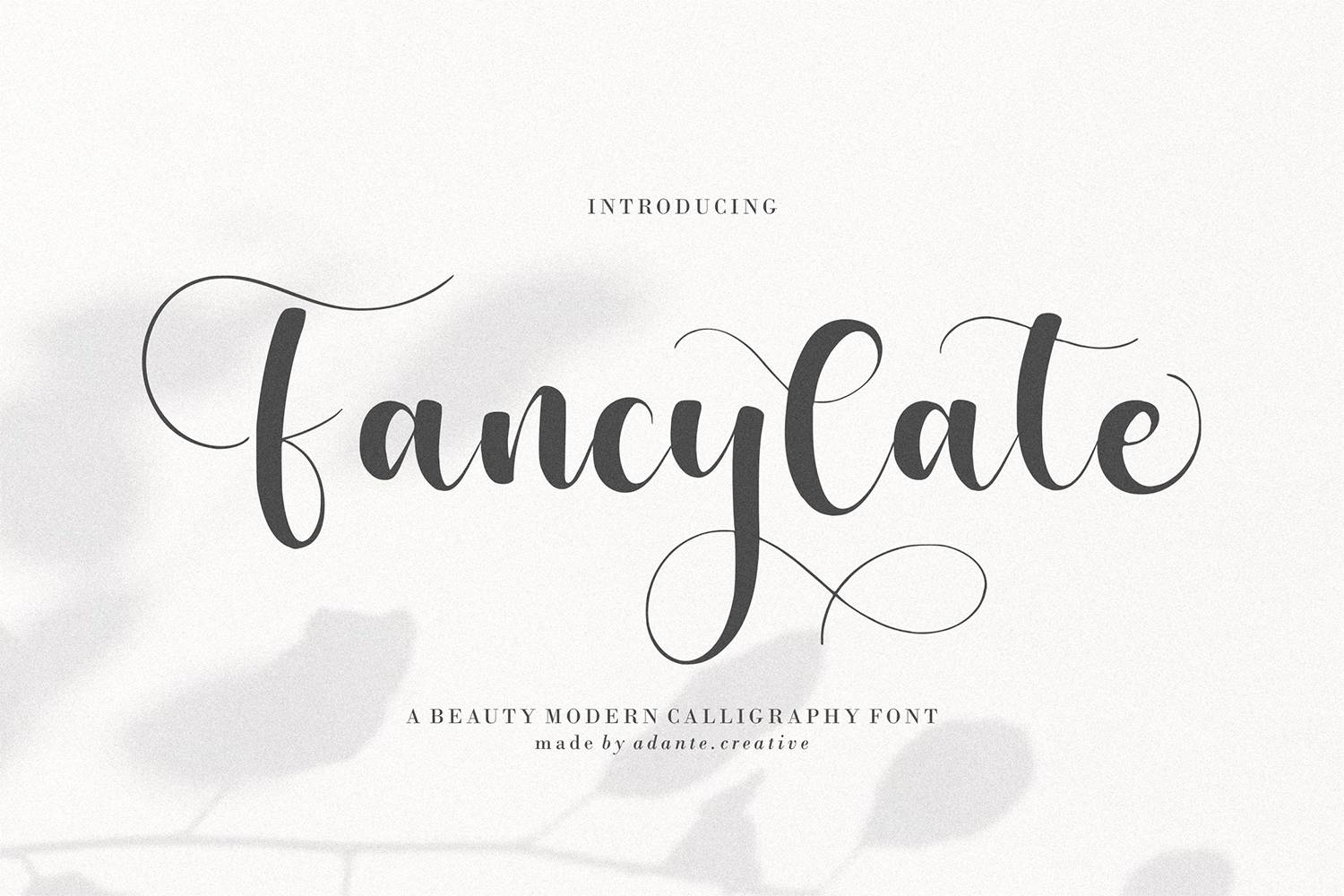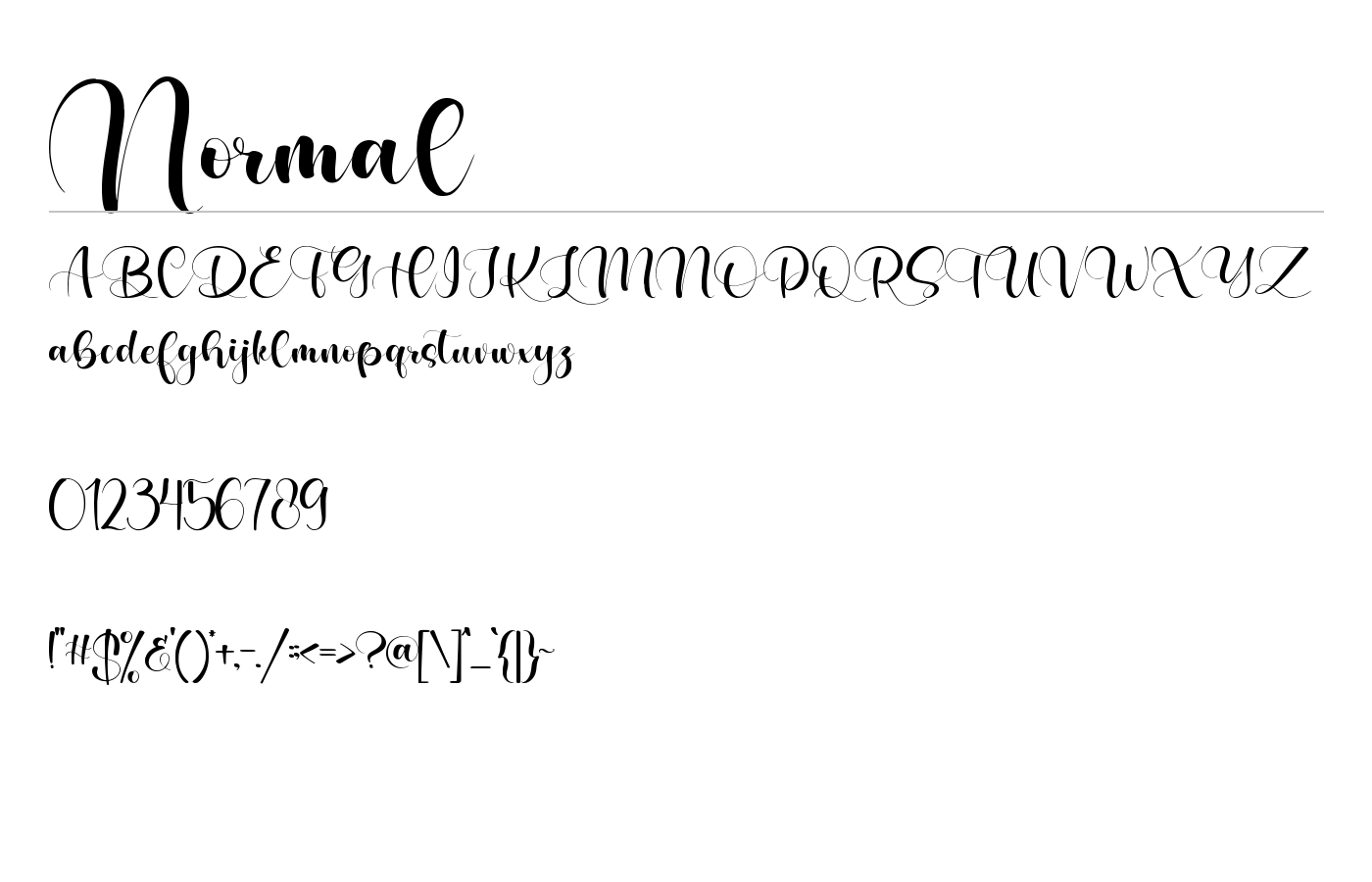
Fancylate is an elegant script font with flowing, delicate strokes and a graceful, calligraphic feel. Its high contrast between thick and thin lines combined with decorative swashes makes it perfect for sophisticated branding, wedding invitations, and luxury packaging where a refined, artistic touch is desired. This font shines best in headlines and display uses, bringing charm and personality to any design.
Fancylate Font
About Fancylate Font
| Font family | Fancylate Font |
| Designer | Adante Creative |